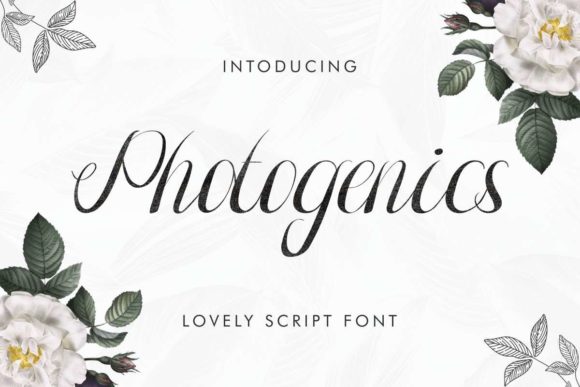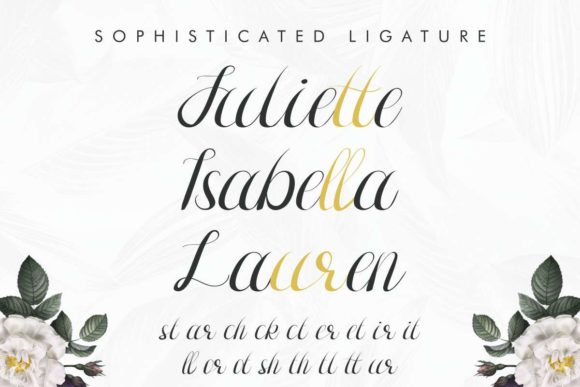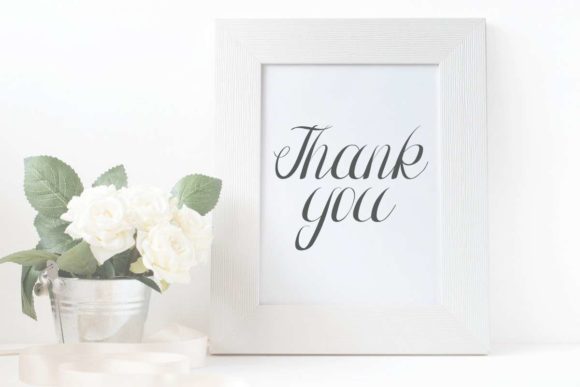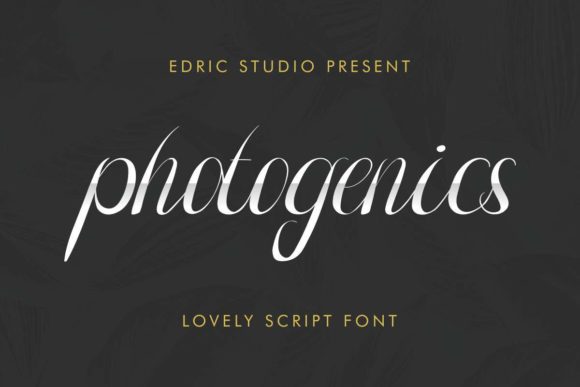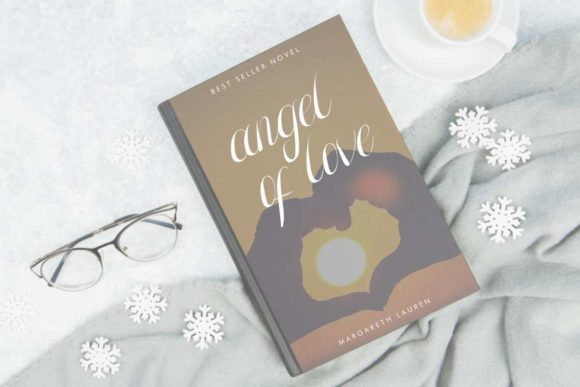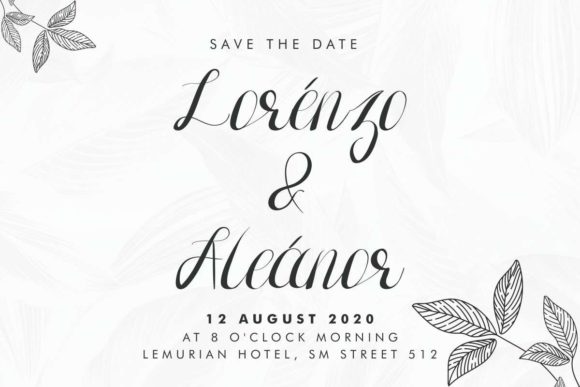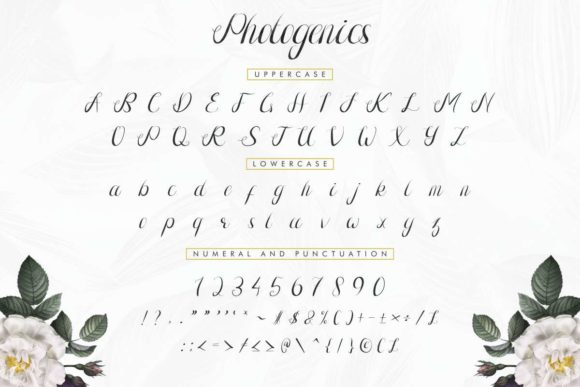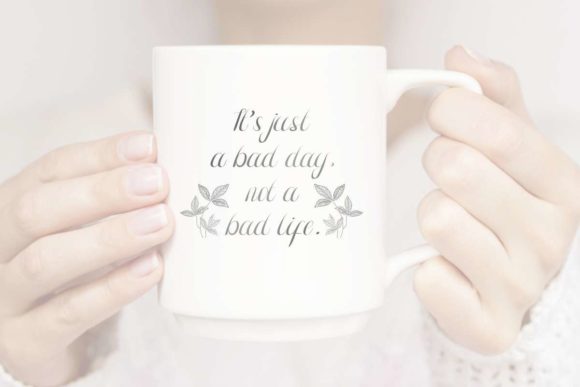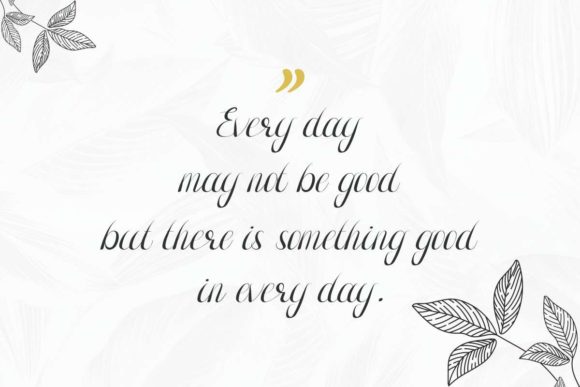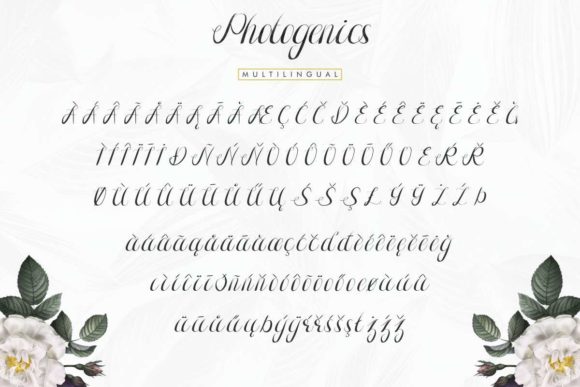
Photogenics Font
About Photogenics Font
Photogenics feels equally charming and elegant. This stunning handwritten font is a stylish homage to classic calligraphy. It features a varying baseline, smooth lines, gorgeous glyphs and stunning alternates.